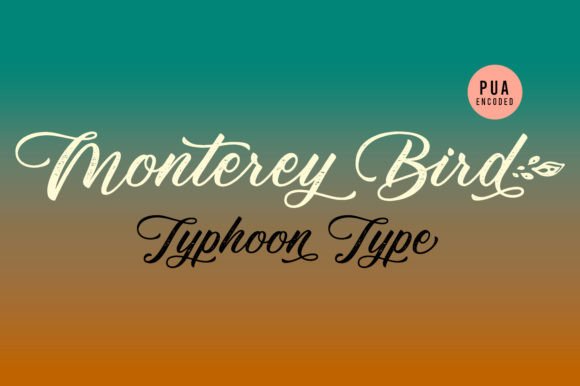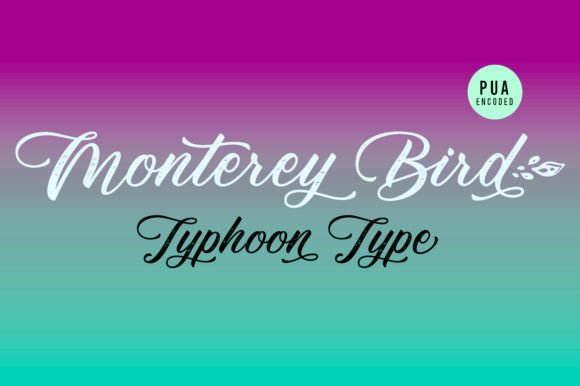
Introduction to Monterey Bird Font
As a designer, there’s nothing quite like the thrill of discovering a new font that perfectly captures the essence of your creative project. For me, that moment came when I stumbled upon the charming Monterey Bird Font. Its delicate script and sweet charm made me envision a world of whimsical logos, adorable name tags, and eye-catching advertising.
Whether you’re working on a high-quality design project or simply need a reliable design resource, the Monterey Bird Font is an absolute gem. With its PUA encoded features, you can easily access all the glyphs and swashes to create truly unique and captivating designs. Plus, its transparent background makes it perfect for product packaging, clothing, and social media graphics.
Key Features of Monterey Bird Font
- High-quality, hand-drawn design perfect for creative projects
- Unique, hand-crafted design elements make it an excellent resource for designers
- Perfect for use in graphic design, digital art, and other creative projects requiring a high-quality font
Honest Review: Monterey Bird Font
As a designer, I’m always on the lookout for high-quality design resources that can elevate my creative projects. Recently, I stumbled upon the Monterey Bird Font, and I’m excited to share my honest review with you.
- Unique, hand-drawn style that adds a personal touch to any design
- High-quality design that’s perfect for print and digital projects
The Monterey Bird Font is a great addition to any designer’s collection, offering a unique and high-quality design that’s perfect for creative projects. The font’s hand-drawn style adds a personal touch, making it perfect for branding, packaging, and other design applications.
- Only available in a limited number of weights, which may limit its versatility
Overall, the Monterey Bird Font is a great resource for designers looking for a unique and high-quality design. While it may have some limitations, its unique style and high-quality design make it a great addition to any designer’s toolkit.
Common Use Cases for Monterey Bird Font
The Monterey Bird Font is